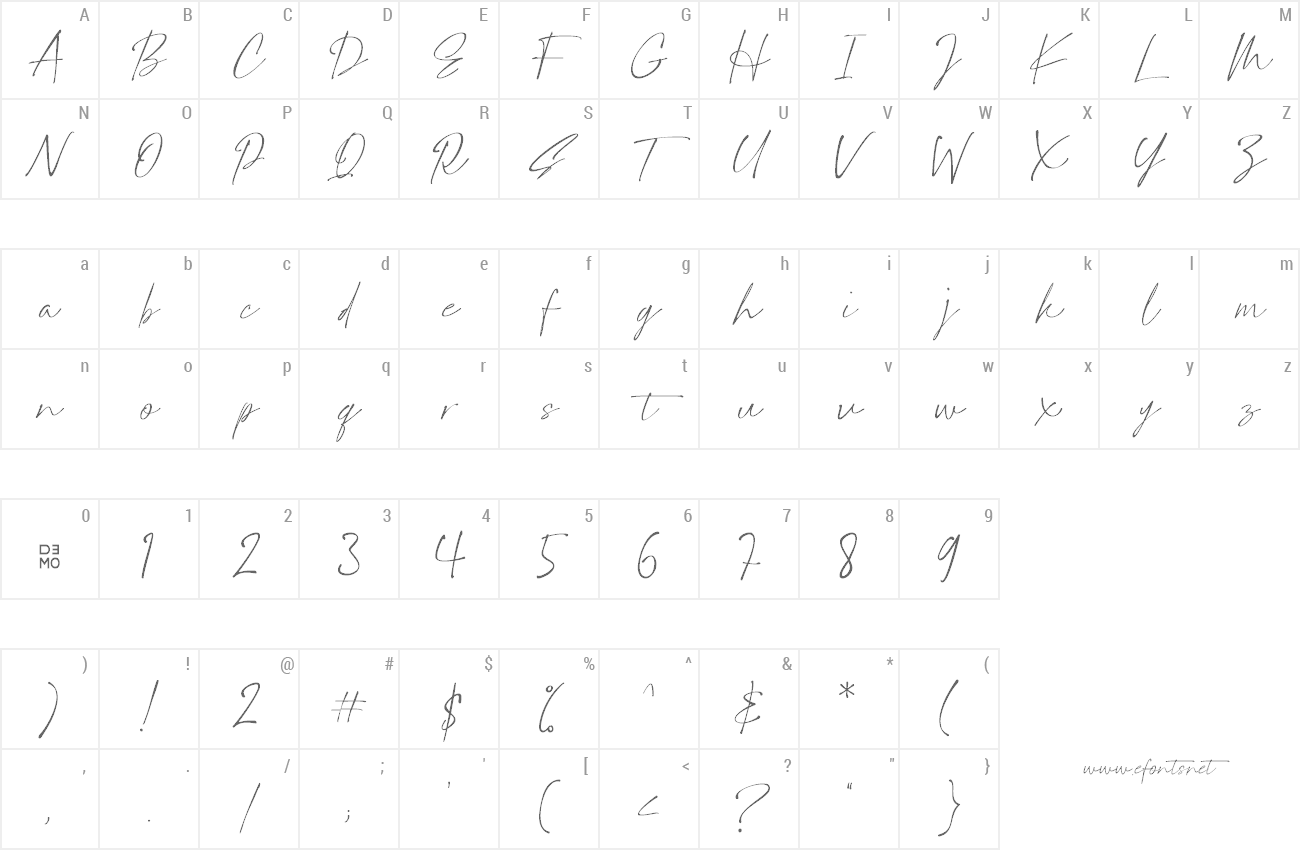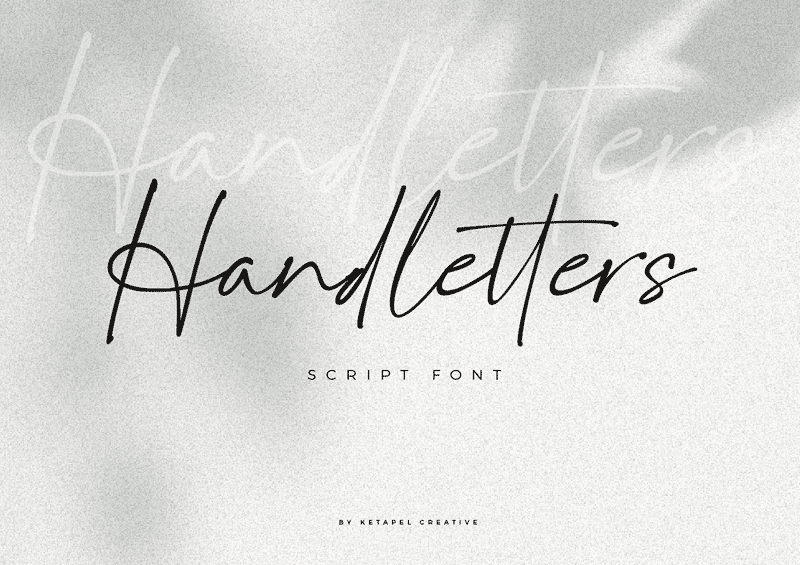
Preview and download Handletters Font. Created by Ketapel Creative in Script Handwritten styles with Free for personal use license.
Handletters is an incredibly distinct, delicate and timeless handwritten font. It looks stunning on wedding invitations, thank you cards, quotes, greeting cards, logos, business cards and every other design which needs a handwritten touch. Includes in uppercase, lowercase, standard numbers & punctuation, multilingual support. *This font is demo version free for personal use. Please visit https://www.creativefabrica.com/designer/ketapelcreative/ref/237095 to purchase commercial license and more other products. download & enjoy !! *Contact me : ketapelcreative@gmail.com Thanks for downloading this fonts. Best Regards |